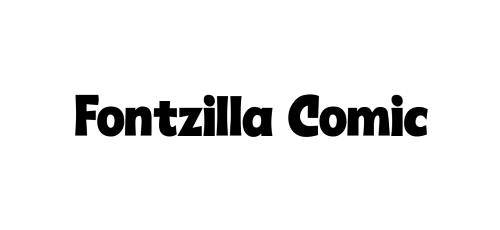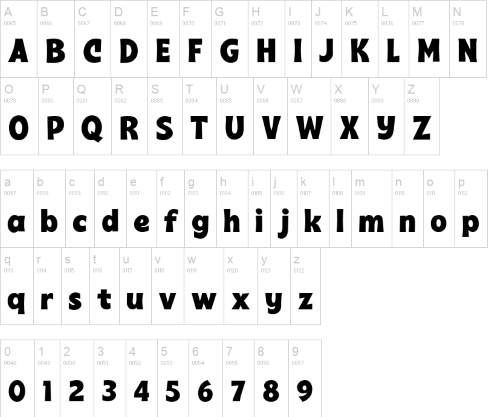
Fontzilla Comic Font
Fontzilla Comic Font is a bold, comic-style display typeface with thick strokes and exaggerated shapes. Its playful, energetic look makes it perfect for cartoons, posters, kids’ designs, speech bubbles, and fun branding. Fontzilla Comic delivers strong impact with a lively, animated personality that instantly grabs attention.
➤ Font Name: Fontzilla Comic
➤ Designer: Black Friday Font FMF
➤ Style: Comic